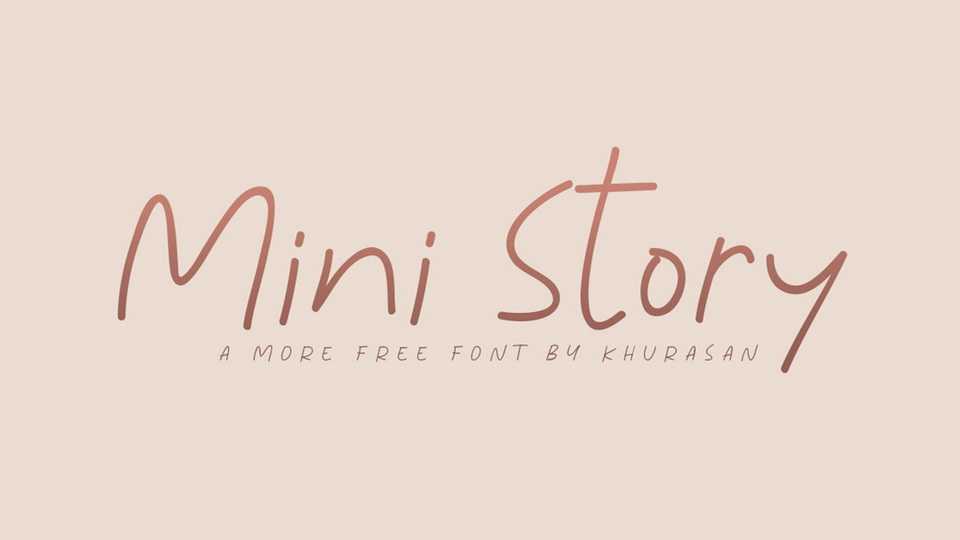
Download Mini Story font, a simple handwritten typeface with a natural and casual feel. It will be perfect for notes, quotes, crafts and other projects that need a personal touch.